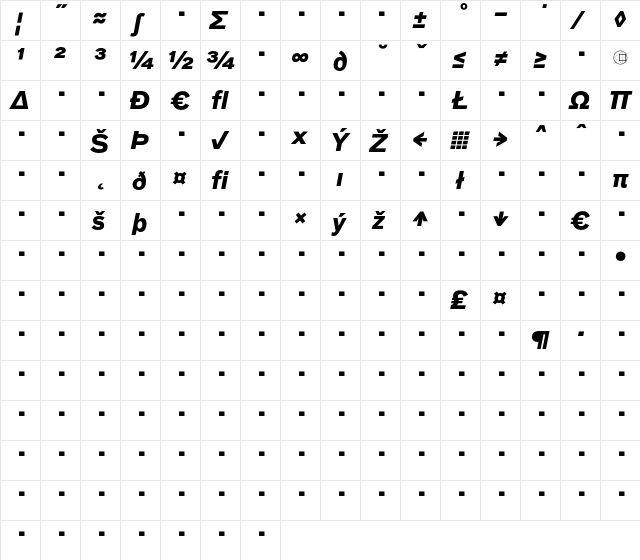
BauLF-BoldItalicExpert Regular Font Preview
Design Context for BauLF-BoldItalicExpert Typeface
BauLF-BoldItalicExpert offers clean, dependable letterforms without strong stylistic allegiance, making it a practical choice for designers who need flexibility. Its italic angle brings a sense of urgency and motion to the letterforms. The heavy weight commands attention and anchors typographic hierarchies.
Pro Tip: Try BauLF-BoldItalicExpert for annotation and caption copy alongside an upright companion — the contrast in angle creates a dynamic but ordered typographic system.